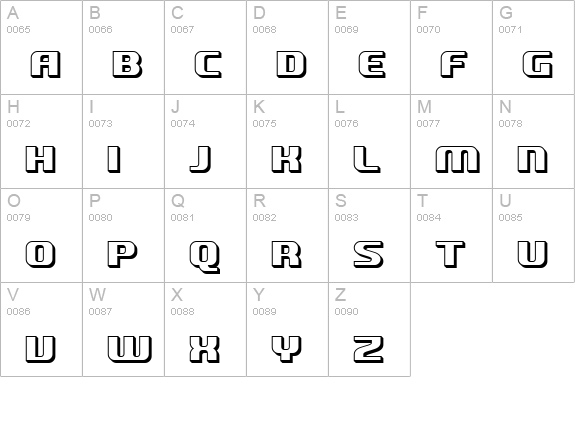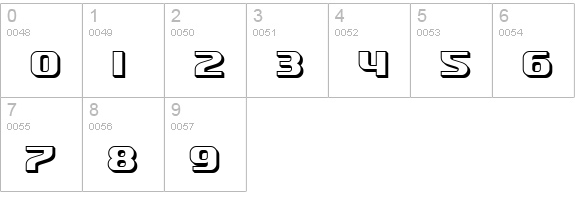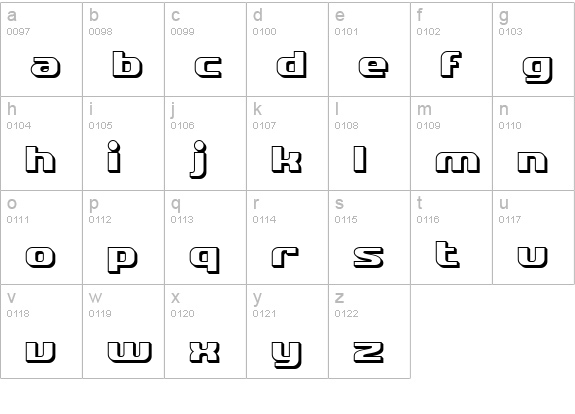
SF Quartzite Shaded Font Details
SF Quartzite Shaded font is a stunning typeface that exudes elegance and sophistication. Its unique design combines the timeless beauty of quartzite with a modern twist, resulting in a font that is both visually striking and highly versatile. The SF Quartzite Shaded font features intricately crafted letterforms with a subtle shading effect, adding depth and dimension to each character. This attention to detail makes the font perfect for adding a touch of luxury to any design project, whether it be a logo, branding, packaging, or editorial design. What sets SF Quartzite Shaded font apart is its availability as a free download. FontsMarket.com offers this exceptional font at no cost, allowing designers and creatives of all backgrounds to access and utilize its beauty and functionality. This generous offer ensures that the SF Quartzite Shaded font is within reach for everyone, regardless of their budget or resources. With its graceful curves, clean lines, and refined aesthetics, SF Quartzite Shaded font is a true statement piece that will elevate any design to new heights. Its versatility and accessibility make it a valuable asset for both personal and commercial projects. Whether you're a professional designer or a hobbyist, this font will undoubtedly inspire and empower you to create remarkable and visually captivating designs. Download SF Quartzite Shaded font for free at FontsMarket.com and unlock the potential to transform your creative endeavors. Embrace the beauty and elegance of this remarkable typeface and watch as your designs come to life with a touch of timeless sophistication.